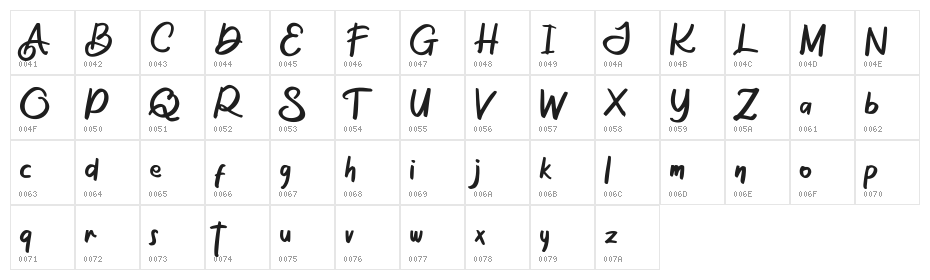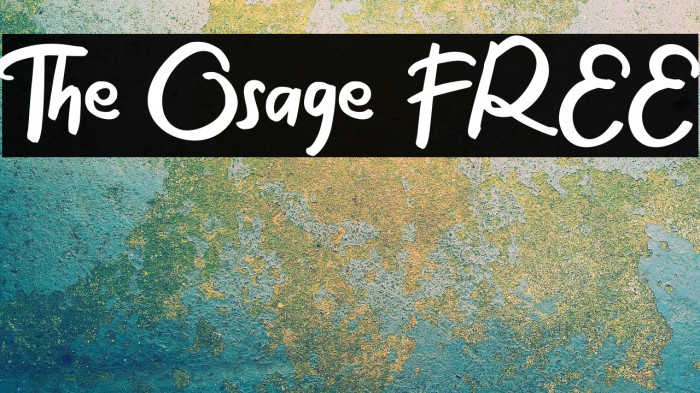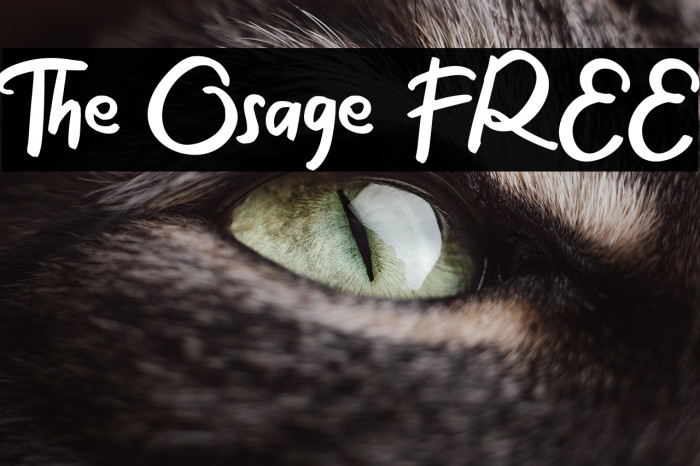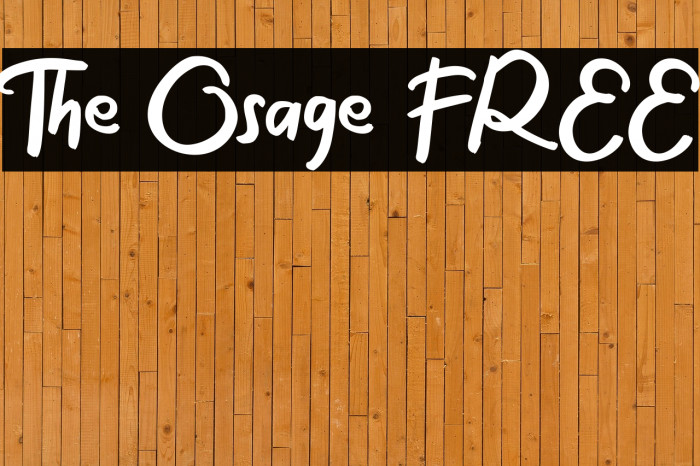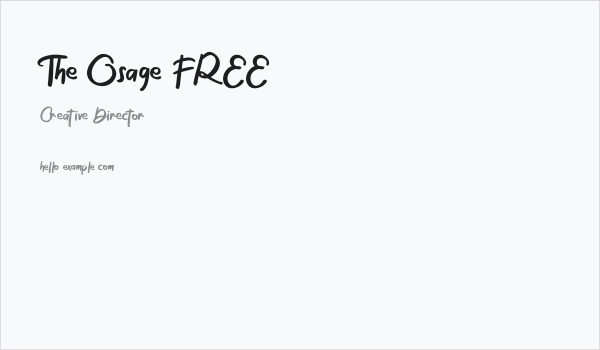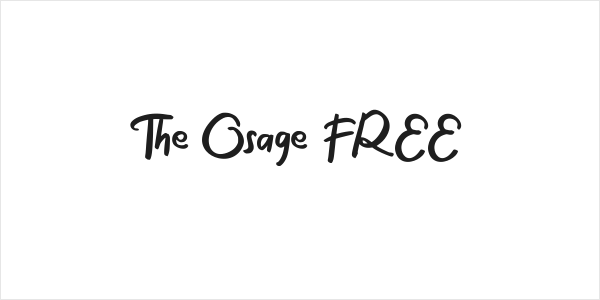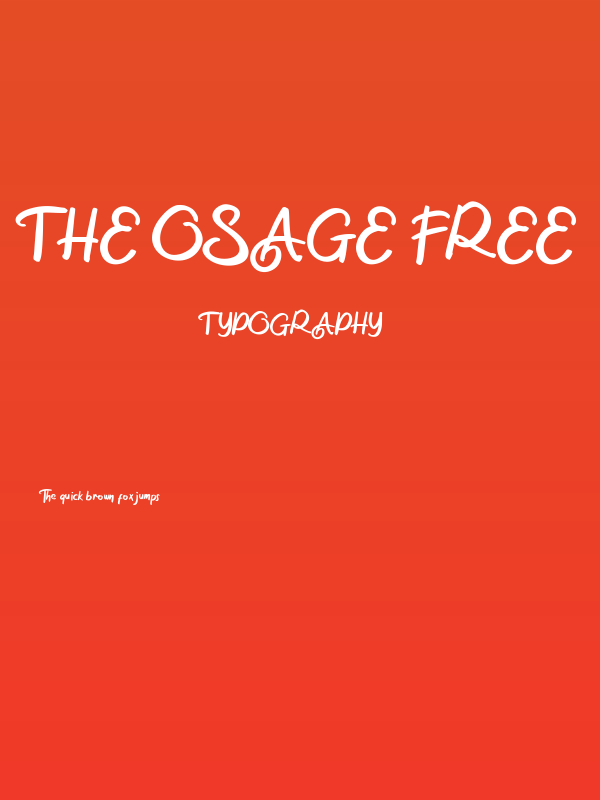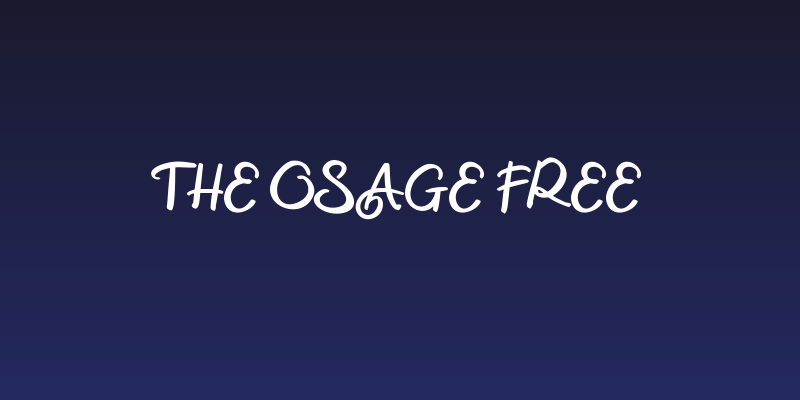
The Osage FREE Font
The Osage FREE Description
This font features a playful and dynamic script style with a handwritten feel. The uppercase letters are characterized by their flowing, cursive forms, while the lowercase letters maintain a consistent, rounded appearance. The strokes vary in thickness, adding a lively and energetic touch. The font's unique charm is enhanced by its slightly irregular baseline, giving it a casual and approachable vibe. The characters are well-spaced, ensuring readability while retaining an artistic flair. This font is versatile, suitable for projects that require a personal and creative touch.
| Overall Style | Casual, Creative |
| Proposed Projects | Ideal for greeting cards, invitations, personal branding, and creative projects. |